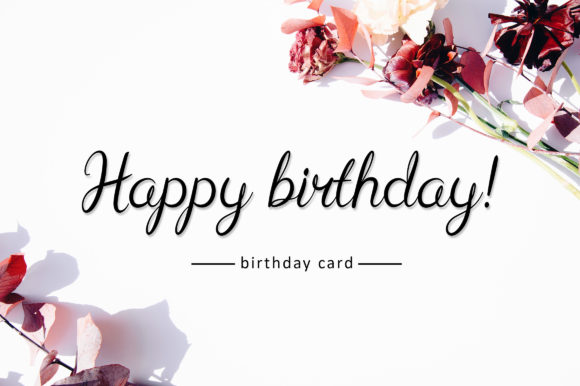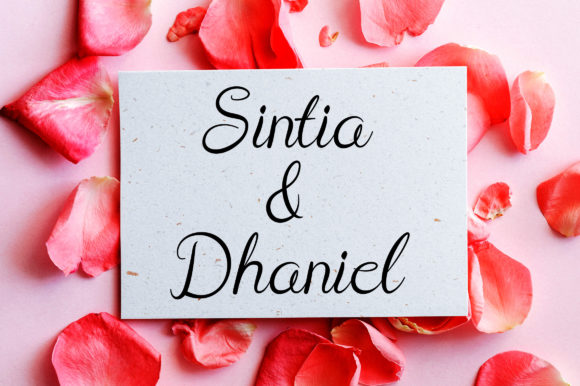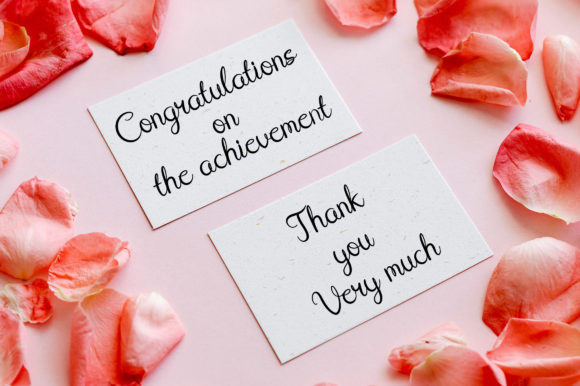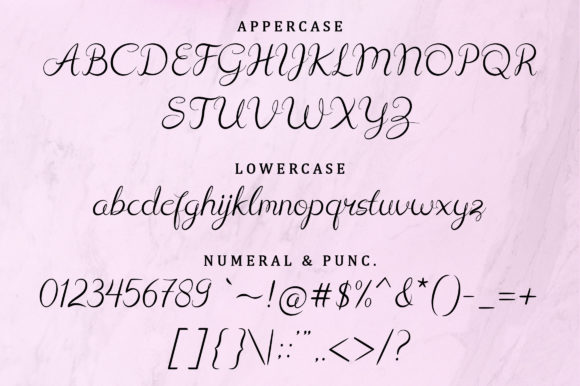
Introduction to Sephia Script Font
Do you remember that moment when you’re brainstorming ideas for your next creative project, and you just know that the right font is missing? For designers, finding the perfect font can make all the difference between a mediocre design and a stunning one. Today, we’re excited to introduce you to the elegant Sephia Script Font – a game-changer for your design resource.
This beautiful script font has a contemporary feel that’s both stylish and classic. With its versatility, you can use it to make your product stand out, or simply to add a touch of sophistication to your next design project. Whether you’re working on a logo, a brochure, or a social media graphic, Sephia Script Font is sure to elevate your work and leave a lasting impression.
Key Features of Sephia Script Font
- Unique Handwritten Style: Sephia Script Font offers a distinctive, elegant, and cursive design perfect for creative projects requiring a touch of sophistication.
- Perfect for Designers: Sephia Script Font is an ideal design resource for graphic designers, digital artists, and anyone looking to add a touch of elegance and sophistication to their creative projects.
Honest Review: Sephia Script Font
As a designer, I’m always on the lookout for high-quality design resources to elevate my creative projects. Recently, I came across the Sephia Script Font, and I must say, it’s been a game-changer.
- Beautifully crafted letterforms that evoke a sense of elegance and sophistication
- Highly versatile, suitable for a wide range of creative projects, from wedding invitations to luxury branding
- Not suitable for body text, as it’s a script font and may be difficult to read at small sizes
- Doesn’t include a wide range of weights or styles, so you may need to use it in conjunction with other fonts
Overall, I’m really impressed with the Sephia Script Font. It’s a high-quality design resource that’s perfect for adding a touch of sophistication to your creative projects. Just be mindful of its limitations and use it wisely.
Sephia Script Font is perfect for creative projects that require a touch of elegance and sophistication. Use it for wedding invitations, birthday cards, or any other design project that needs a beautiful, handwritten font.
To get the most out of Sephia Script Font, experiment with different font sizes and colors to create a unique and eye-catching design. You can also use the font in combination with other design elements, such as images and graphics, to create a visually appealing design.